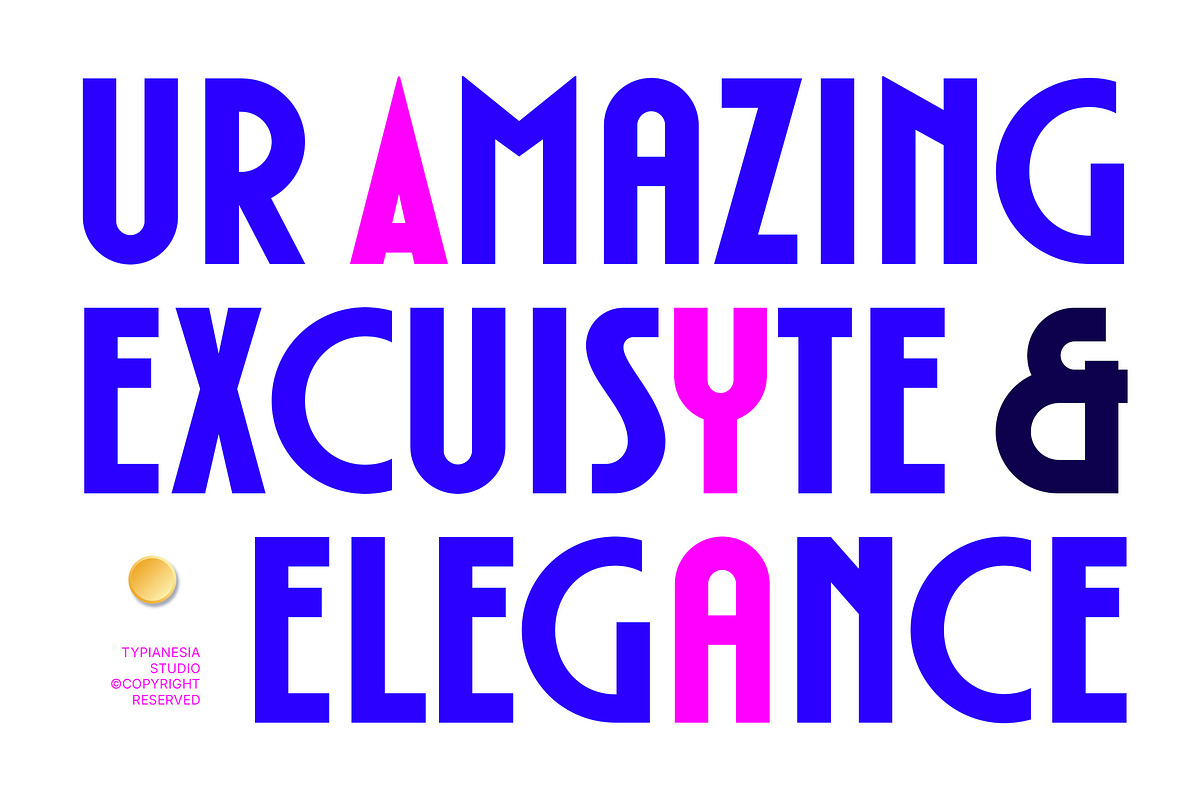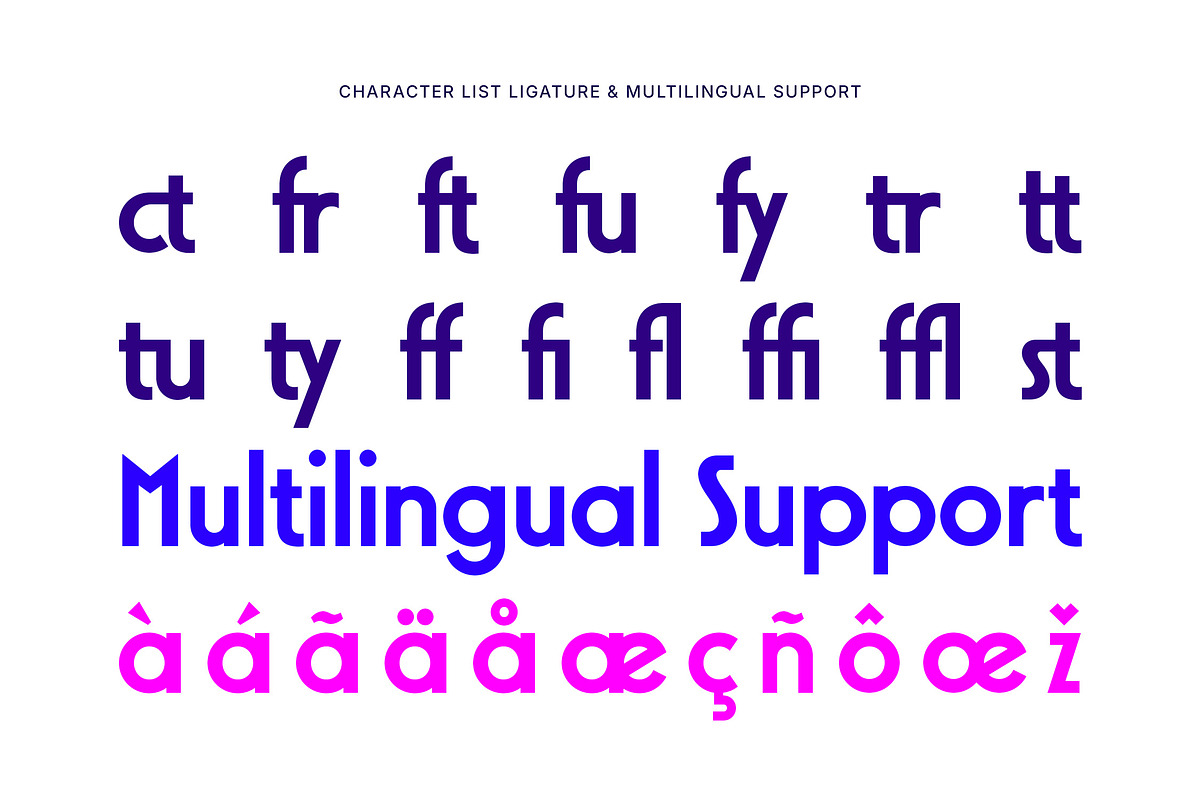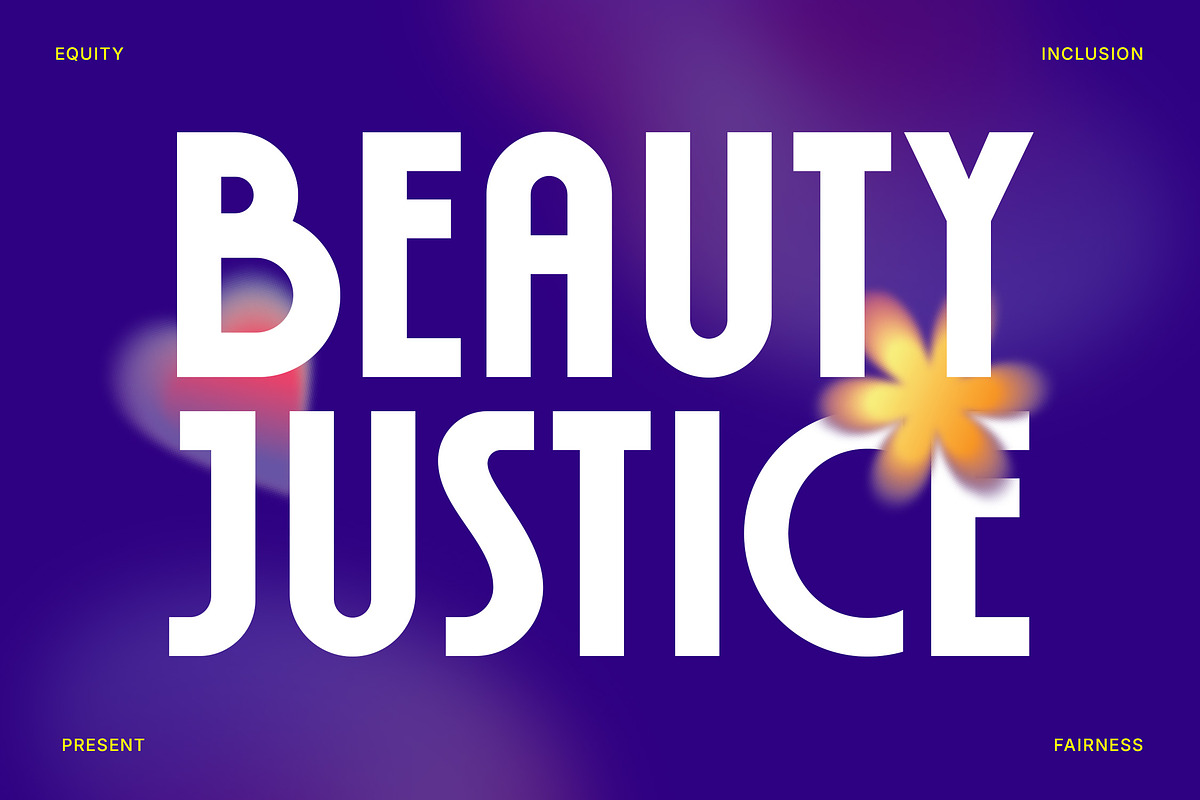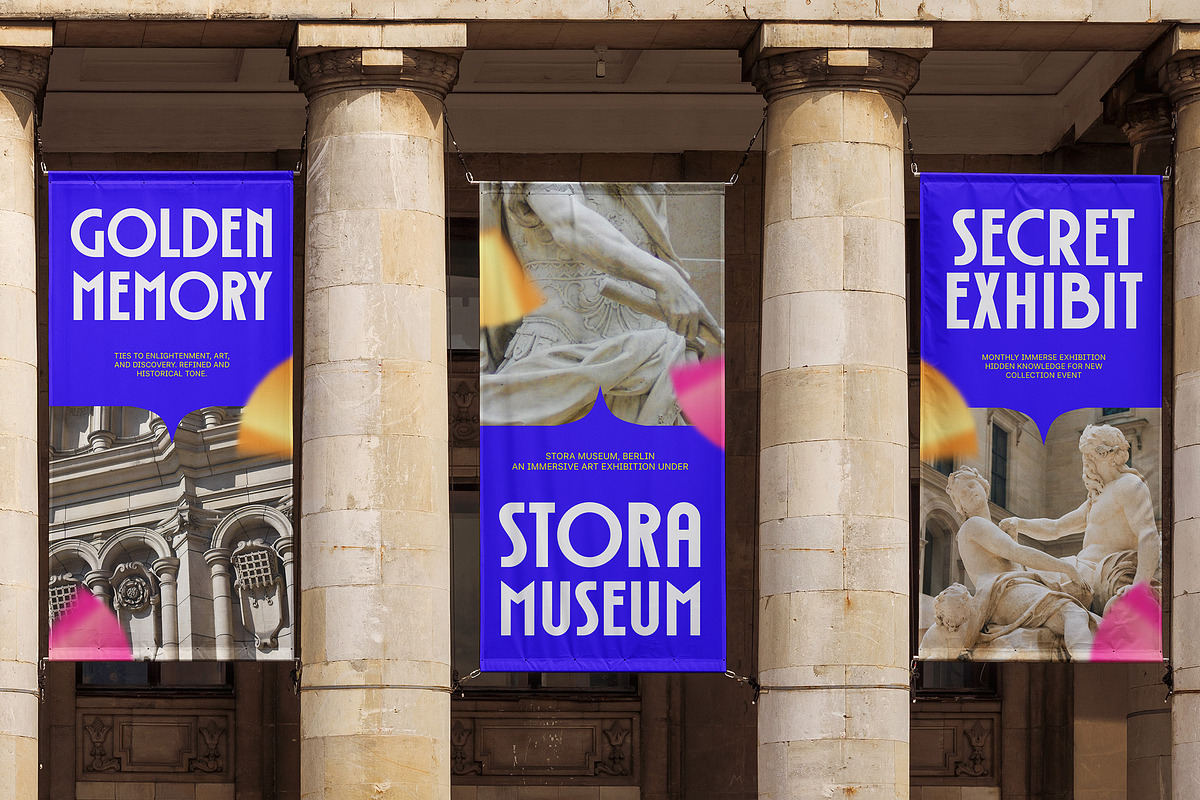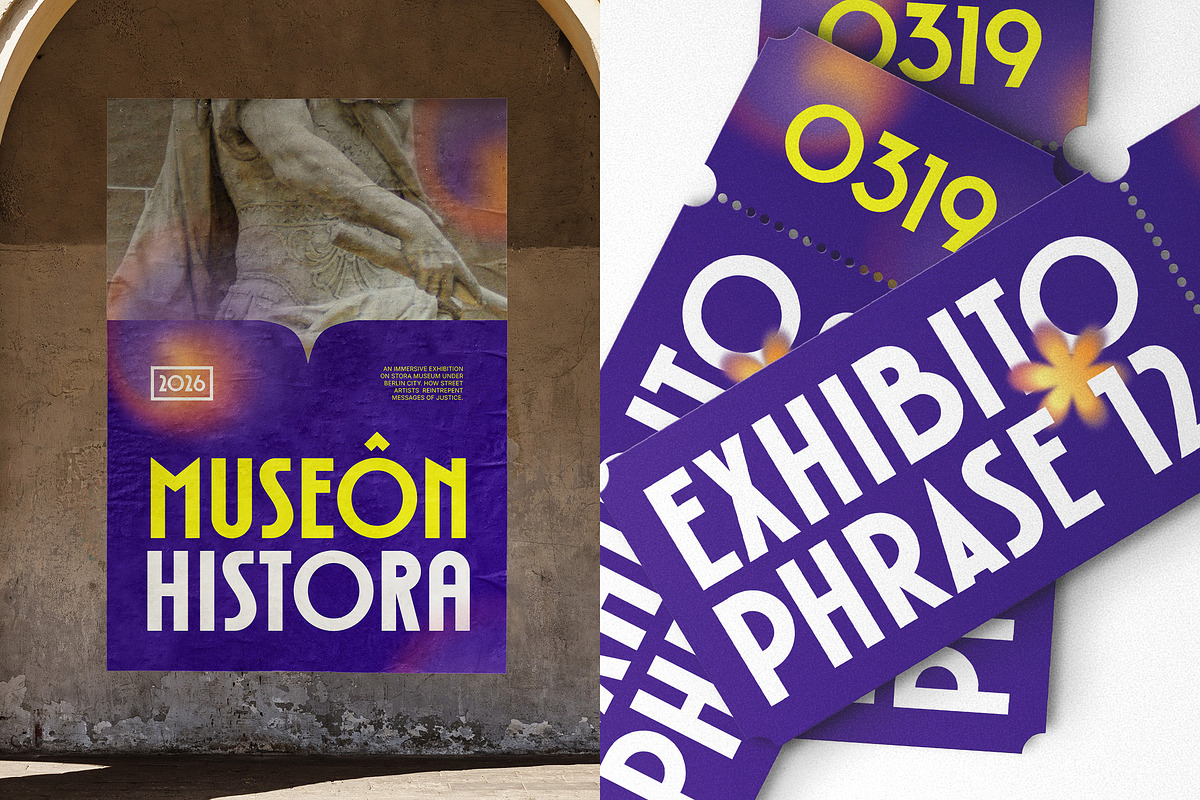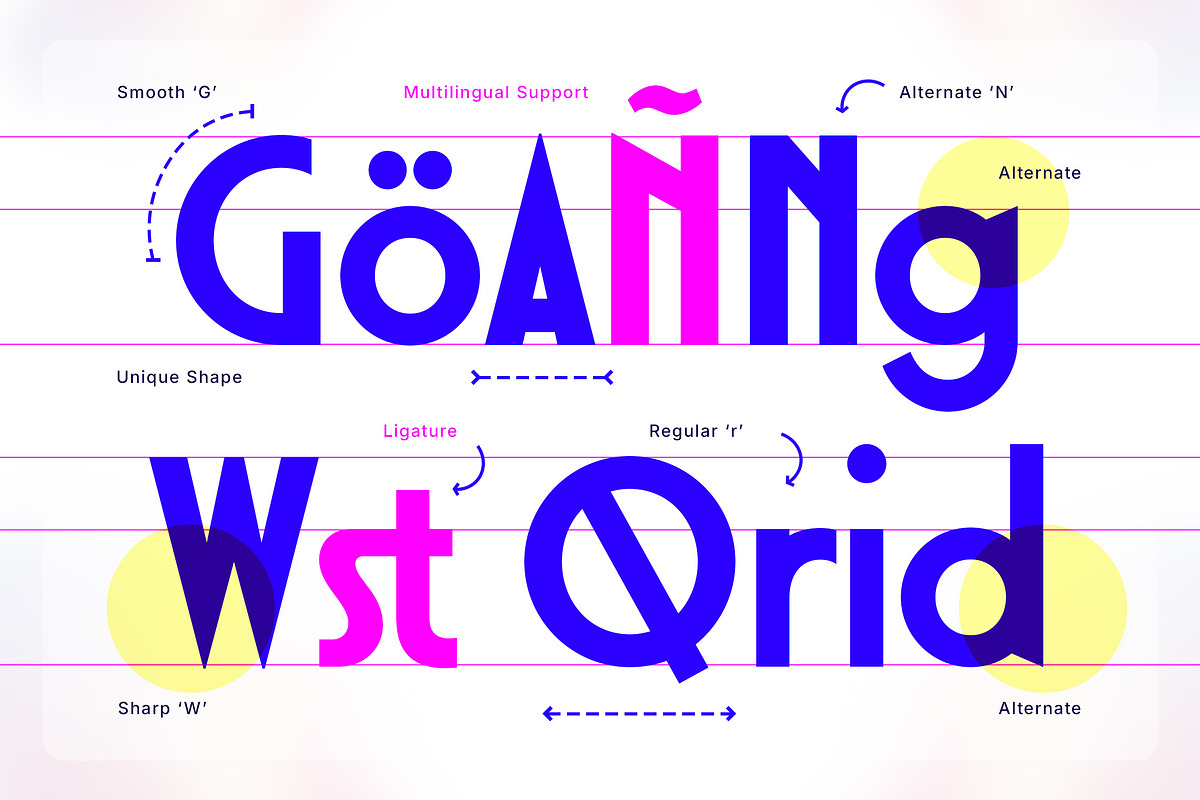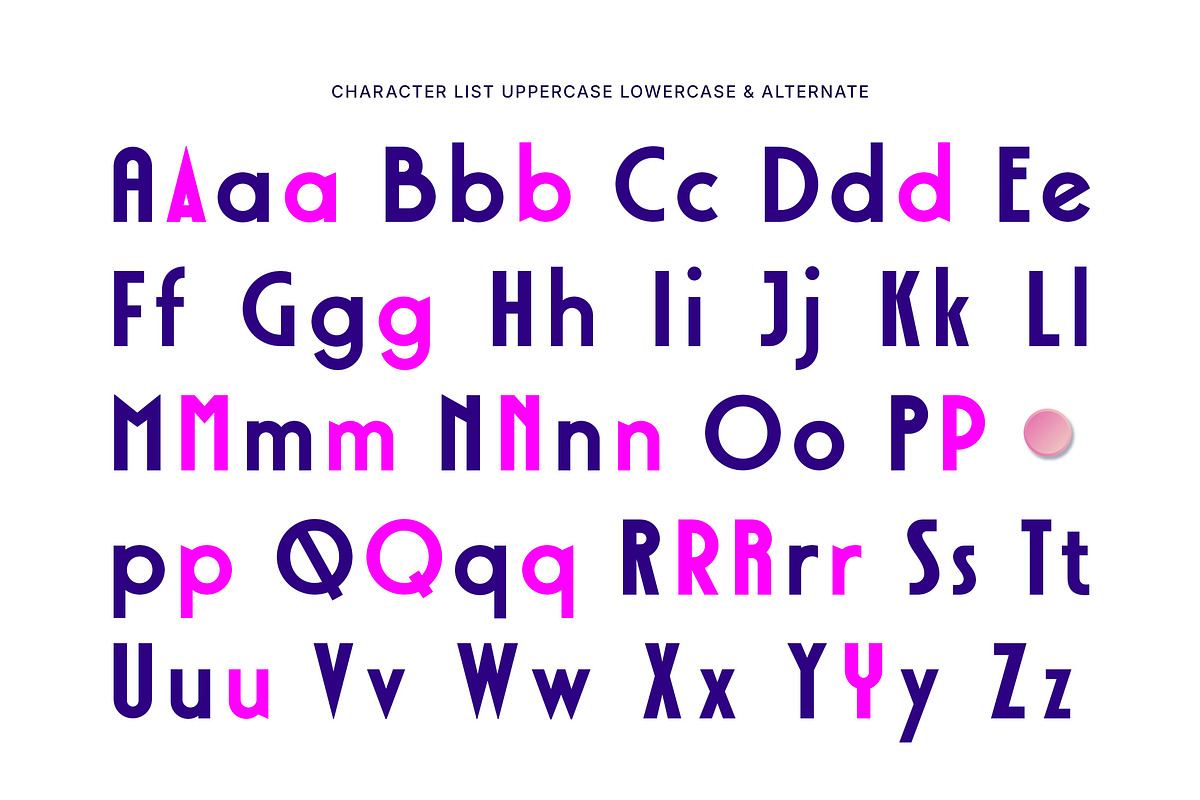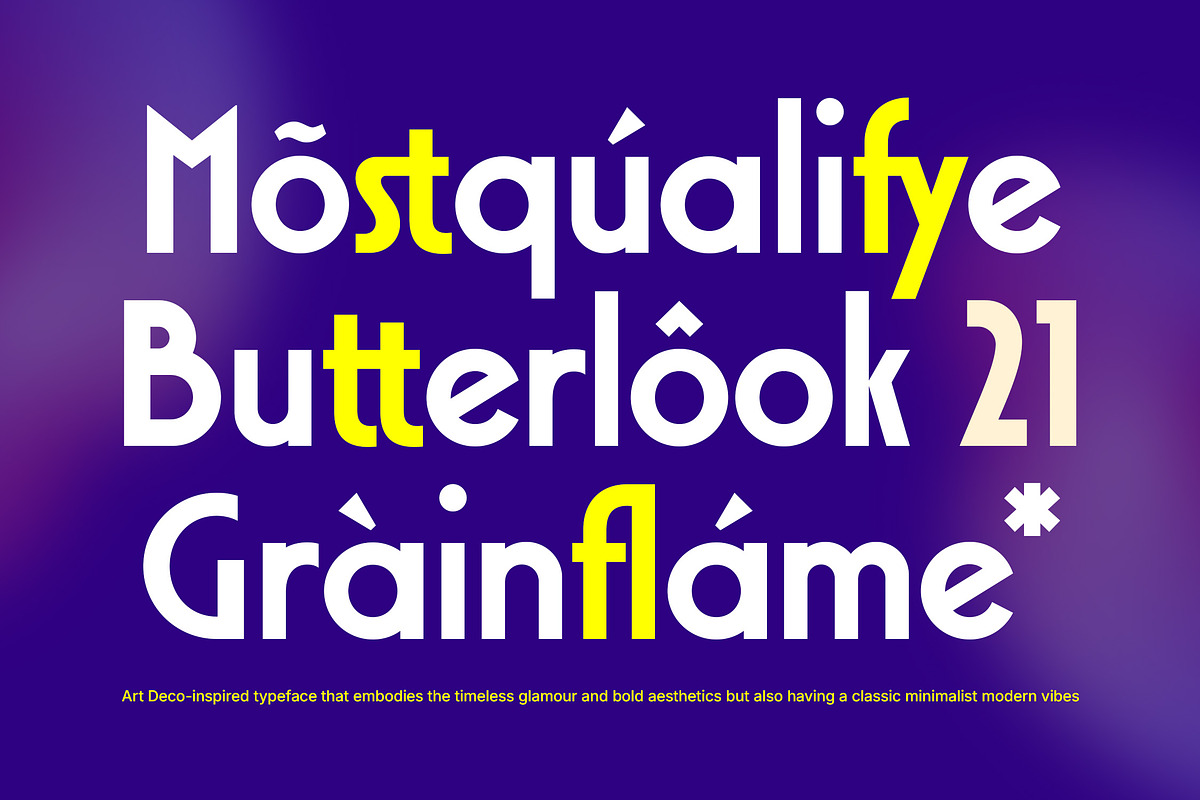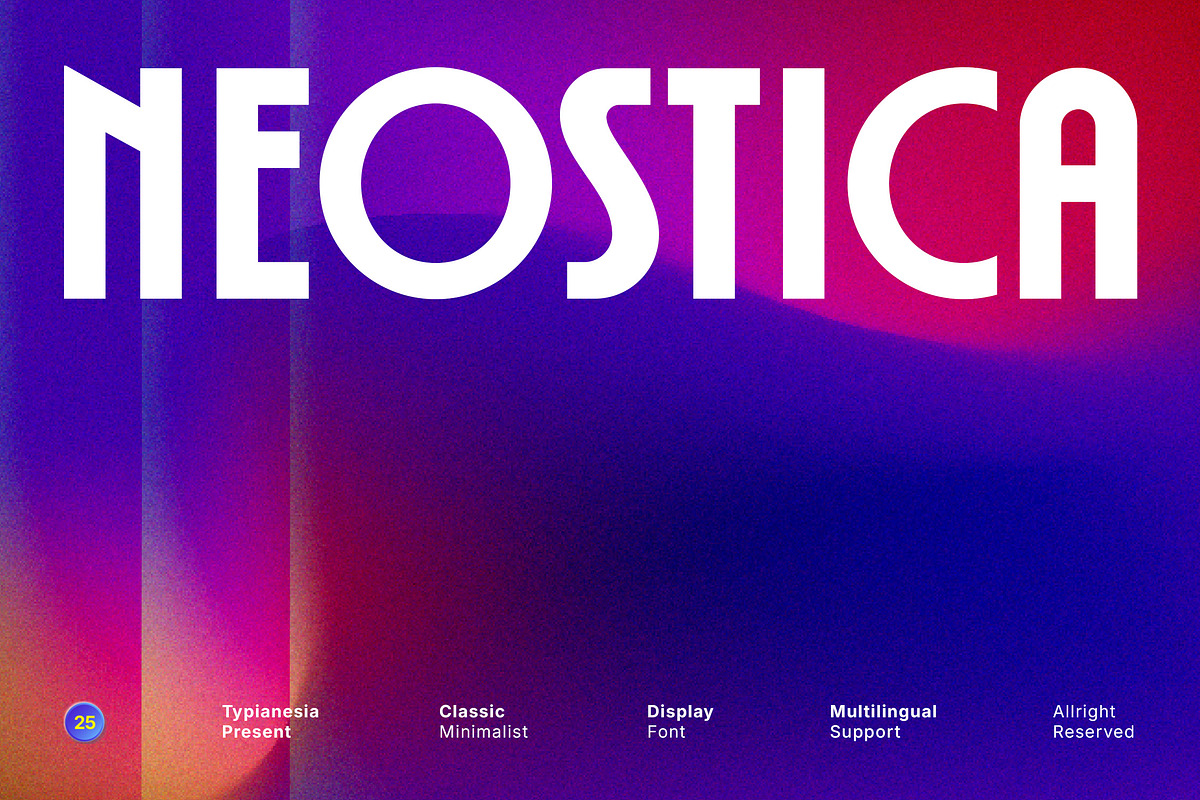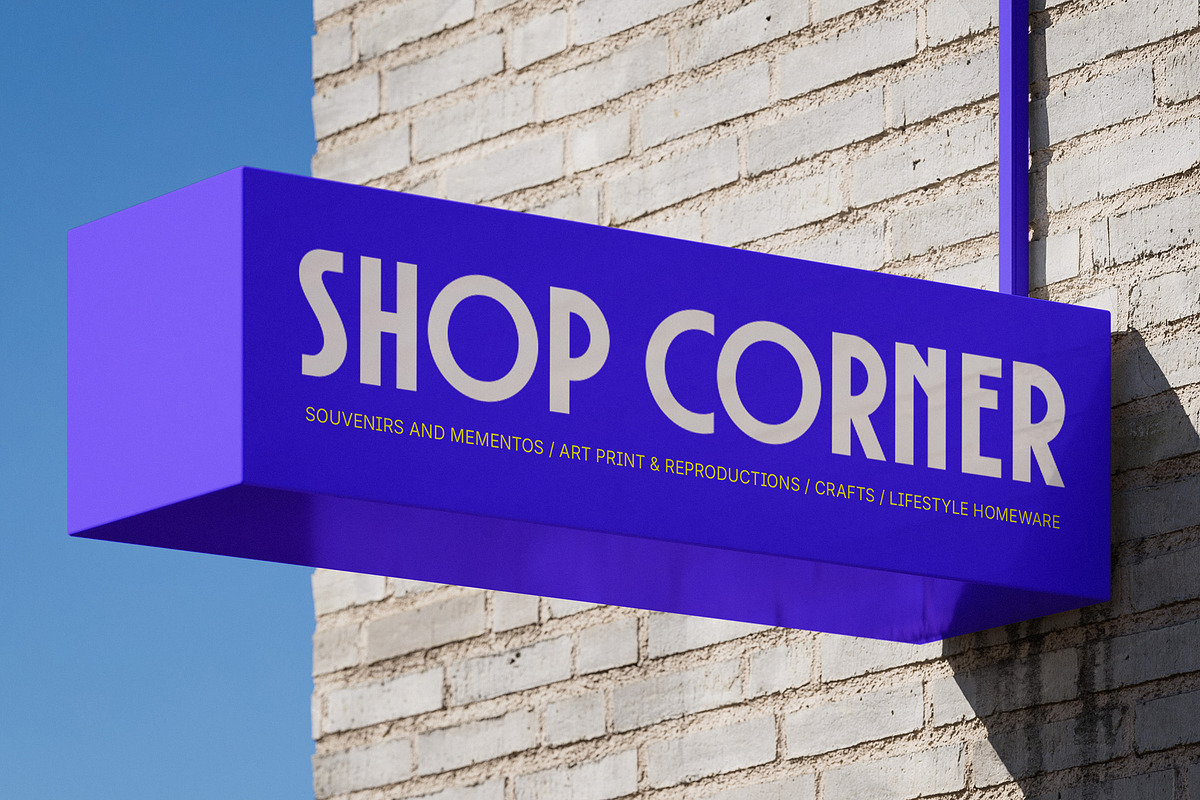
Neostica - Clean Modern Condensed
Neostica - Clean Modern Condensed / Tall logo font - Classic Minimalist Logo Display Font
Neostica is a Modern and Minimalist Display Sans typeface designed to make a bold impact. With its Condensed and exceptionally Tall letterforms, Inspired by the timeless glamor and Bold aesthetics of Art Deco, the font seamlessly blends this Classic influence with Clean and contemporary lines, it's perfectly suited for creating powerful and memorable Logo designs, Wordmarks, and Logotypes, Corporate branding, impactful Headlines, large-scale Posters, engaging Exhibition titles, modern Advertising campaigns and any projects that require a touch of a modern, clean and minimalist look. Comes with comprehensive character set, featuring uppercase and lowercase letters with stylistic alternates, numerous ligatures, extensive Multilingual Support, and a full range of numerals and punctuation, providing a sophisticated and dynamic visual rhythm.